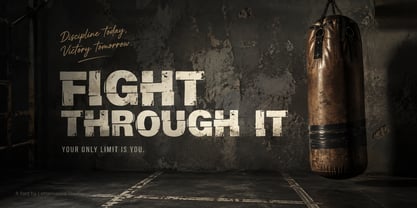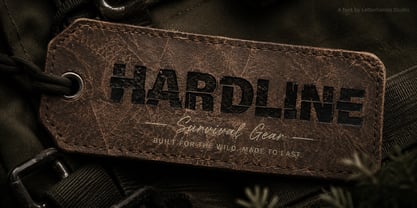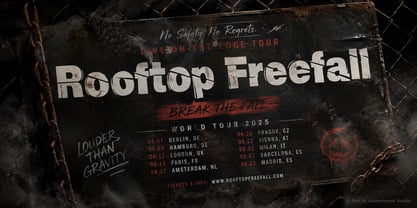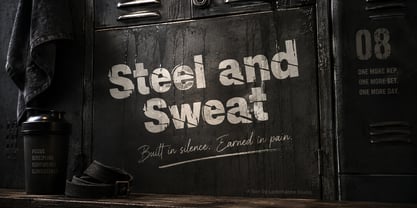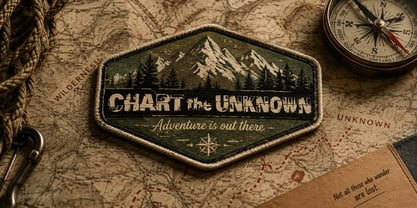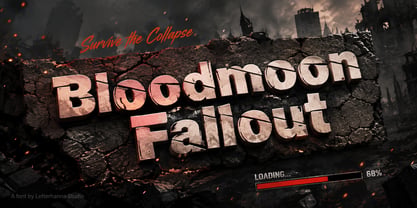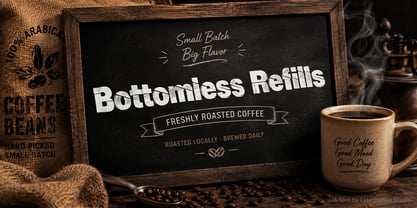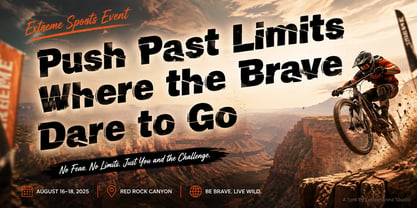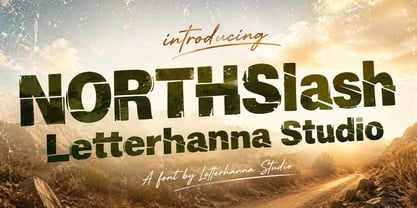
Northslash
von Letterhanna Studio
Die Schriftfamilie Northslash wurde von Rinaldo Hasibuan entworfen und von Letterhanna Studio veröffentlicht. Northslash enthält 1 Stile. Mehr über diese Familie
There's a particular kind of energy that lives in things that have survived something — a weathered leather jacket, a rusted street sign, a concrete wall layered with torn posters. That raw, lived-in quality is exactly what inspired the creation of Northslash, a distressed font built for designers who want their typography to feel earned rather than manufactured.
Every letterform in Northslash looks like it has been through a fight and come out standing. The strokes are thick and unapologetic, carrying the confidence of a true bold font, while jagged diagonal cracks slice through nearly every character, splitting the letters as if they had been struck by something forceful and left permanently scarred. It's not a clean break — it's chaotic, uneven, and deliberately imperfect, which is exactly the point.
As a grunge font, Northslash pulls from a lineage of punk flyers, distressed band merch, and underground zine culture, where imperfection was never a flaw — it was the whole aesthetic. The uneven edges, the slightly cracked terminals, the way each letter seems to be splitting under pressure, all contribute to a typeface that feels defiant rather than decorative. This isn't a font you use when you want to blend in. It's a font you use when you want your headline to hit like a fist.
What sets Northslash apart from other cracked font options on the market is the consistency of its damage. Rather than random distress applied inconsistently across the alphabet. That consistency matters enormously in real-world use.
Whether you're designing a streetwear logo, a music poster, or a horror movie title card, you need a typeface that holds its character across every word you type, not just in a curated preview image.
Designers working in genres that thrive on grit — metal band branding, extreme sports campaigns, tattoo studio signage, apocalyptic game titles, rugged outdoor gear — will find Northslash slots naturally into that visual language. It doesn't try to be versatile in a generic sense. It commits fully to one mood: bold, broken, and unbothered by it.
If you've been searching for a distressed font that doesn't feel like every other "grunge" typeface flooding the marketplace, Northslash is worth a closer look. It's not trying to be soft-spoken or safe. It's built for headlines that need to feel like they were carved out of something, not typed into a template.
Designer: Rinaldo Hasibuan
Foundry: Letterhanna Studio